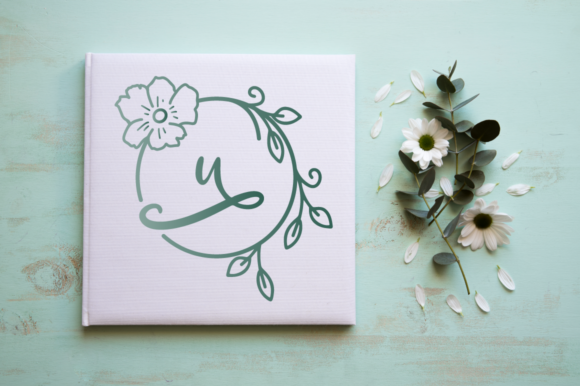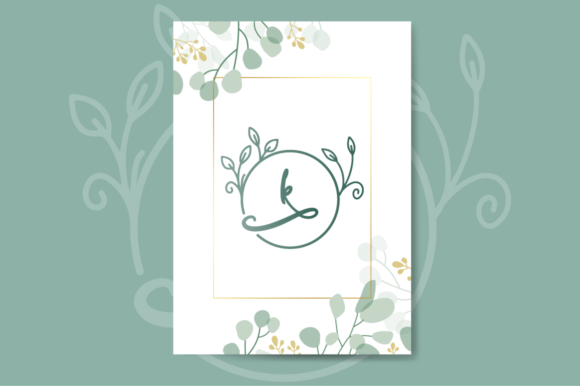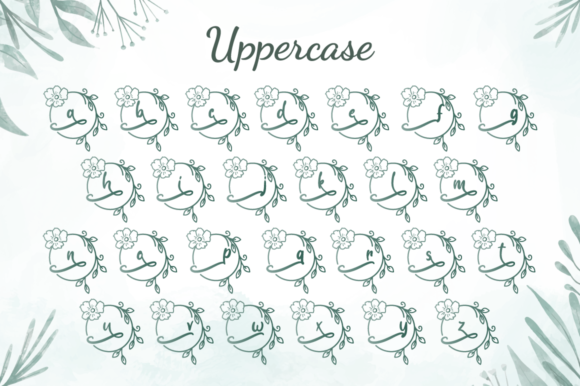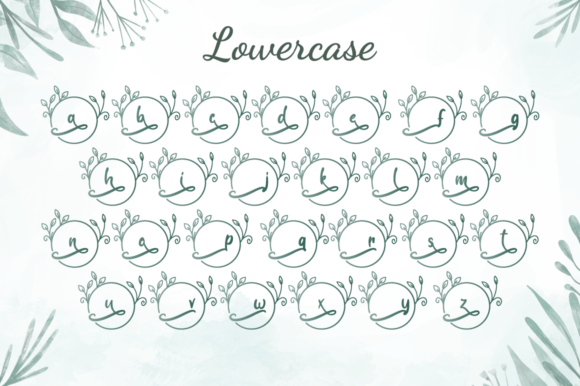
The Sweet Charm of Abilane Flower Monogram Font
Have you ever been in the middle of a design project, and suddenly, you just can’t seem to find the right font? I recall a particularly frustrating moment when a client asked for a romantic, whimsical touch for their wedding invitation suite. I scoured the internet, tried countless fonts, but nothing seemed quite right. That was until I stumbled upon the Abilane Flower Monogram Font. It’s been a game-changer ever since! 🌼
I’m excited to share my thoughts on the Abilane Flower Monogram Font, and I hope my review helps you decide if it’s the perfect fit for your next project.
- ✨ Lovely Decorative Style: This font is a beautiful example of a decorative, monogram-style font. It’s perfect for adding a touch of elegance and sophistication to any design.
- ✅ Easy to Read: Despite its decorative nature, the Abilane Flower Monogram Font is surprisingly easy to read, making it perfect for use in a variety of design projects, from wedding invitations to branding materials.
- 💕 Romantic and Whimsical: The font’s gentle, flowing lines and delicate floral motifs evoke a sense of romance and whimsy, making it perfect for designs that require a touch of femininity.
While the Abilane Flower Monogram Font is a stunning addition to any design, there are a few things to keep in mind:
- 🤔 Limited Use Cases: Due to its decorative nature, this font may not be suitable for body text or lengthy paragraphs. It’s best used for headings, titles, or monograms.
- ⚠️ Requires OpenType Support: To get the most out of this font, you’ll need to use a design program that supports OpenType features, such as glyphs and stylistic alternates.
The Story Behind Abilane Flower Monogram Font
While I couldn’t find any information on the font’s creator, it’s clear that the Abilane Flower Monogram Font was designed with love and care. The font’s delicate floral motifs and gentle lines evoke a sense of romance and whimsy, making it perfect for designs that require a touch of elegance.
| Font Name | Abilane Flower Monogram Font |
| Author | attypestudio |
Q: What type of designs is the Abilane Flower Monogram Font best suited for?
A: The Abilane Flower Monogram Font is perfect for designs that require a touch of elegance and sophistication, such as wedding invitations, branding materials, and packaging.
Q: Is the Abilane Flower Monogram Font easy to read?
A: Despite its decorative nature, the Abilane Flower Monogram Font is surprisingly easy to read, making it perfect for use in a variety of design projects.